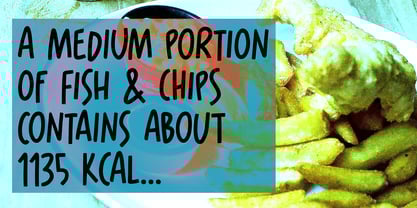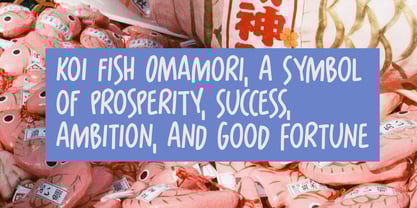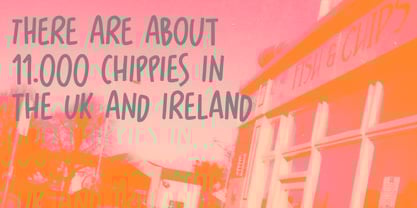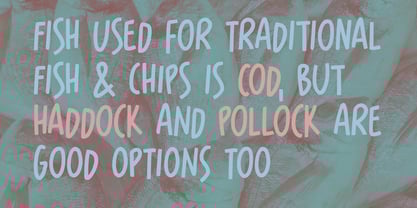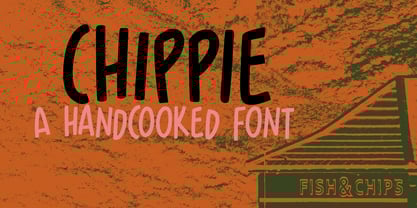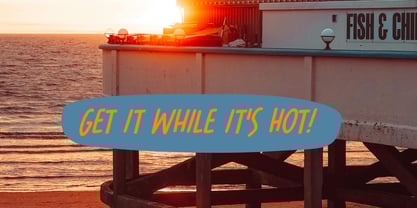
Chippie
by Hanoded
Chippie is British vernacular for Fish & Chips Shop. There are about 11.000 of them scattered all over the UK and Ireland, so there’s no need to starve to death… ;-)
My family and I will go on a cycling holiday in England this summer, so I booked a ferry to Harwich from Hook of Holland. Since we’ll be arriving in the evening, I also booked a pub slash campsite for the first night. I emailed them and asked if they were serving dinner as well (which they did), so I guess it’ll be fish & chips and a pint!
Chippie is a handmade font. It’s a bit cheeky, a bit wobbly, but there’s nothing fishy about it. Use it for your book covers, products and quite possibly the menu for your Chippie!
About Hanoded
Hanoded is run by Dutchman David Kerkhoff. His fonts are a mishmash of styles, as he just creates whatever pops into his head. You will find a lot of brush fonts in his collection, as his favourite tools are brushes and Chinese ink, with cartoon style fonts and script fonts complementing his repertoire. Aside from making fonts, David occasionally guides tours in far-flung places, renovates his '30's house and tries reasoning with his wife and (teenage) kids. Not an easy task!